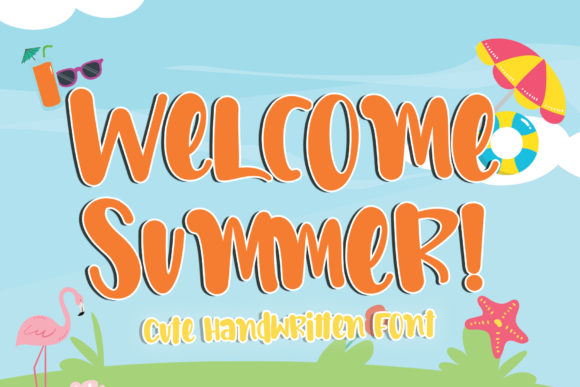
Feast your eyes on Welcome Summer, a captivating handwritten font that exudes charm and playfulness. Enter the realm of creativity, where Welcome Summer transforms your designs into masterpieces. Its whimsical nature adds a touch of whimsy, turning every word into an artistic expression. With Welcome Summer, your designs will radiate a vibrant energy that captures hearts and imaginations.
Welcome Summer's unique characteristics make it an exceptional choice for crafting logos that stand out. Its flowing curves and playful personality add a touch of elegance and sophistication, ensuring your logo leaves a lasting impression.
Step into a world of limitless possibilities with Welcome Summer. Its extensive glyphs and swashes offer an array of options to customize your designs, allowing you to unleash your creativity and express yourself fully. The varying baseline, smooth lines, and stunning alternates create a visually engaging experience that captivates your audience.
Welcome Summer is a font that speaks to the heart, evoking a sense of joy and excitement. Its friendly demeanor invites readers to delve into your content, making it an ideal choice for marketing materials, invitations, greeting cards, and any project that requires a personal touch.
Don't settle for ordinary fonts that blend into the background. Embrace the vibrancy and uniqueness of Welcome Summer. Let your designs flourish with its infectious energy, attracting attention and leaving an unforgettable mark on your audience. Experience the magic of Welcome Summer today and elevate your designs to new heights!